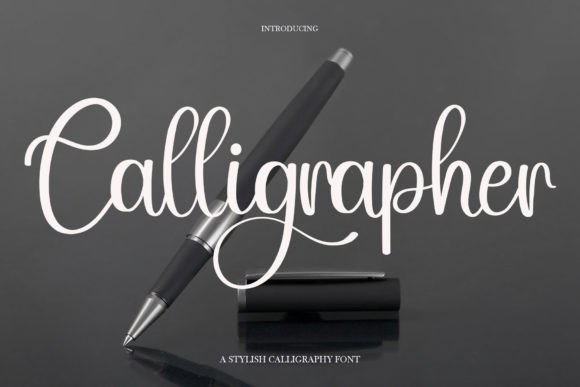
Behold Calligrapher Font, the masterpiece crafted by the ingenious mind of asmunin78. This script font exudes a contemporary flair while staying true to the timeless beauty of classic calligraphy. It's a font that captivates with its elegance, injecting a touch of sophistication into any design project.
Immerse yourself in the world of Calligrapher Font, a script font that dances across the digital canvas with grace and poise. Its contemporary essence and impeccable form make it the perfect choice for designers seeking to add a touch of elegance and class to their work. With Calligrapher Font at your fingertips, your designs will radiate a timeless charm that resonates with audiences.
With Calligrapher Font, you'll embark on a creative journey where your designs take center stage. Whether you're crafting logos, branding materials, invitations, or social media graphics, this font will elevate your work to new heights. Its versatility knows no bounds, seamlessly adapting to a multitude of design styles and themes.
Unleash your creativity and watch as Calligrapher Font transforms your designs into captivating works of art. Its meticulously crafted characters, flowing lines, and impeccable details will leave a lasting impression on your audience. Embrace the allure of Calligrapher Font and witness the transformation of your designs into timeless masterpieces.